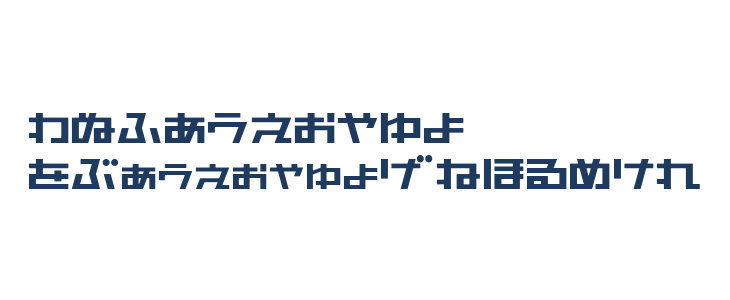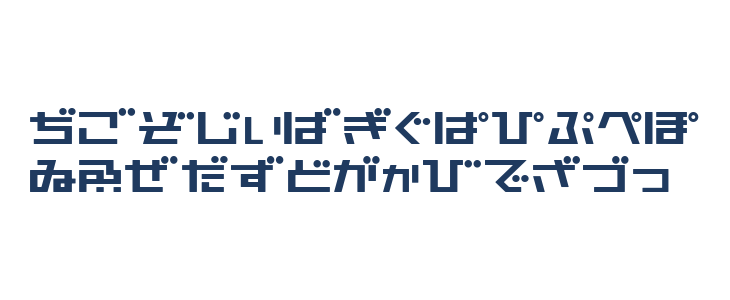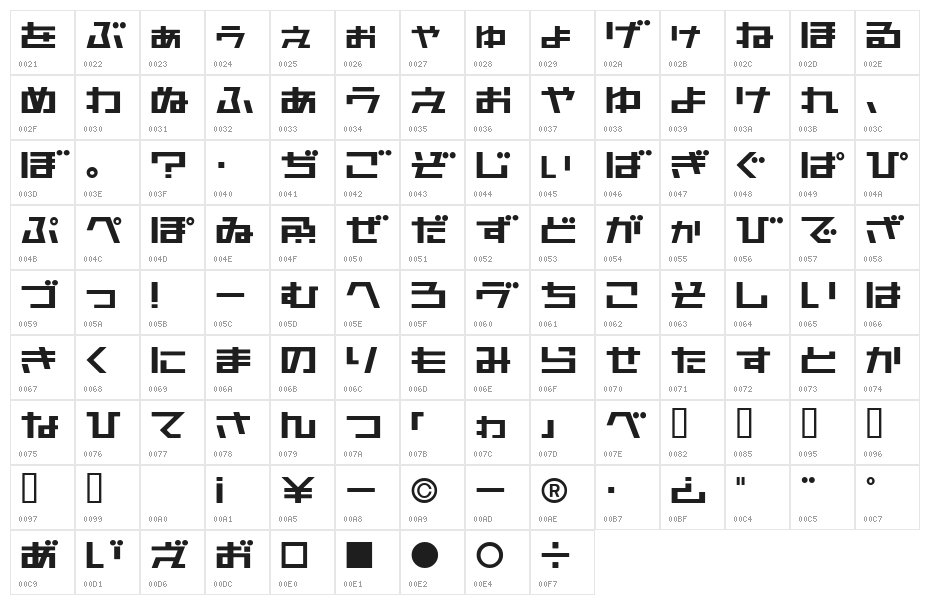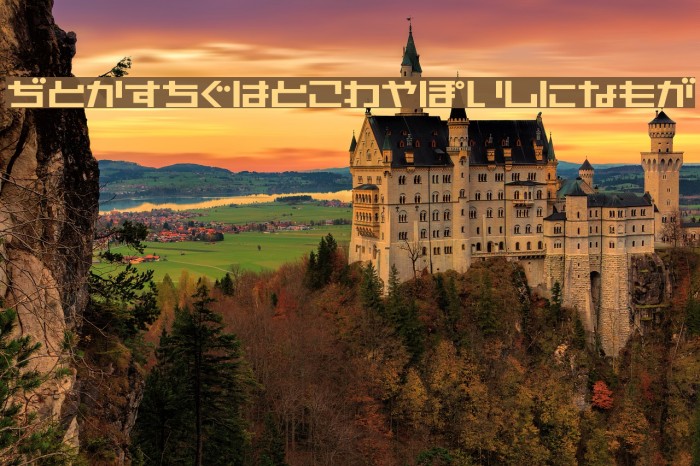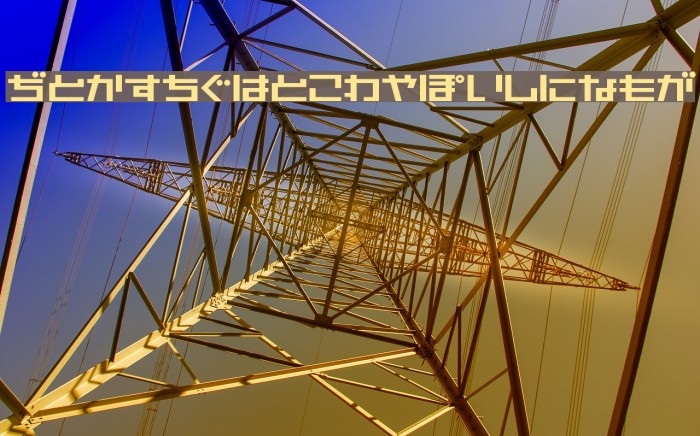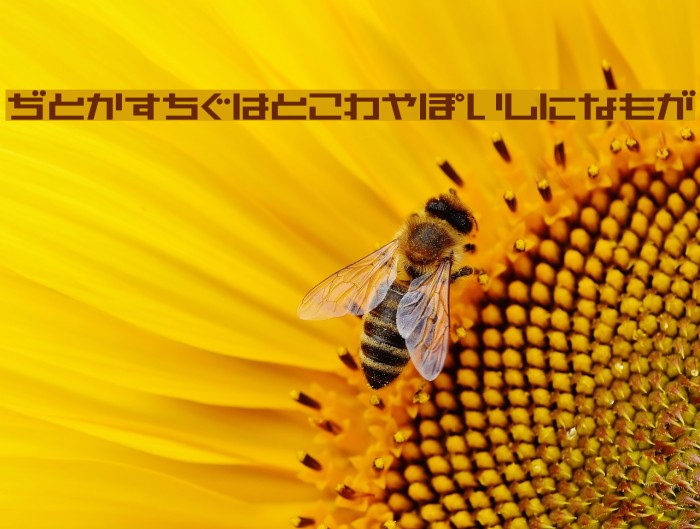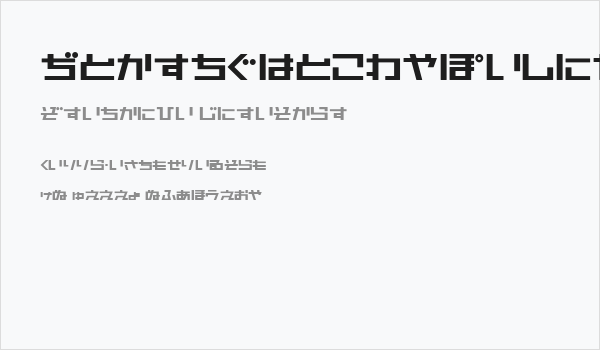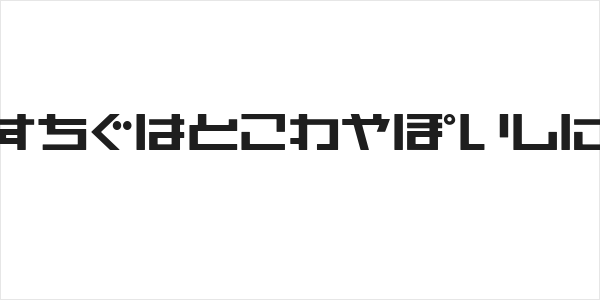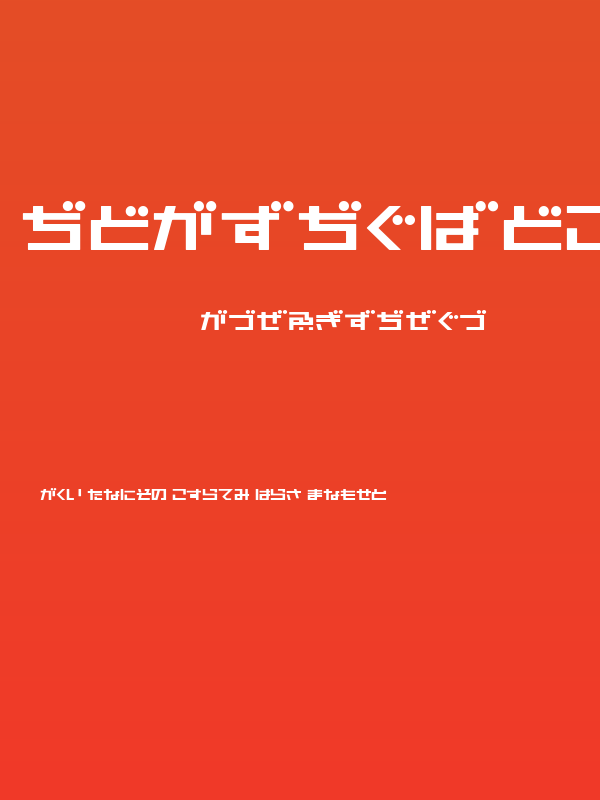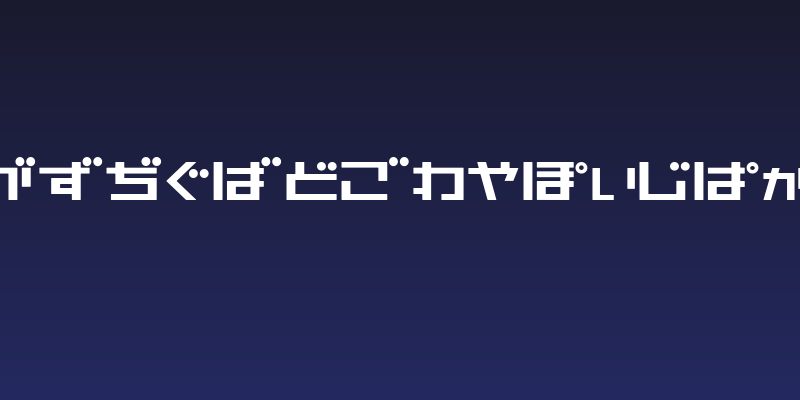
AstraHfsb07MediumT Font
AstraHfsb07MediumT Description
This font features a bold and geometric style with a strong presence. The characters are constructed with thick, uniform strokes that give it a robust and modern appearance. The angular design and consistent line weight contribute to its distinctive look, making it suitable for attention-grabbing headlines or logos. The spacing between characters is tight, enhancing its compact and impactful aesthetic. This font's clean lines and lack of serifs emphasize its contemporary feel, while the uniformity in stroke width ensures readability even at smaller sizes.